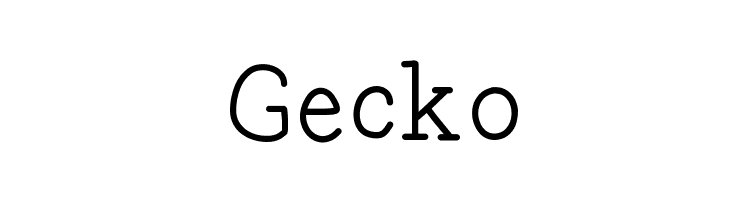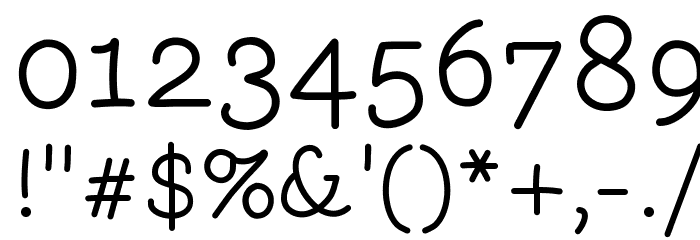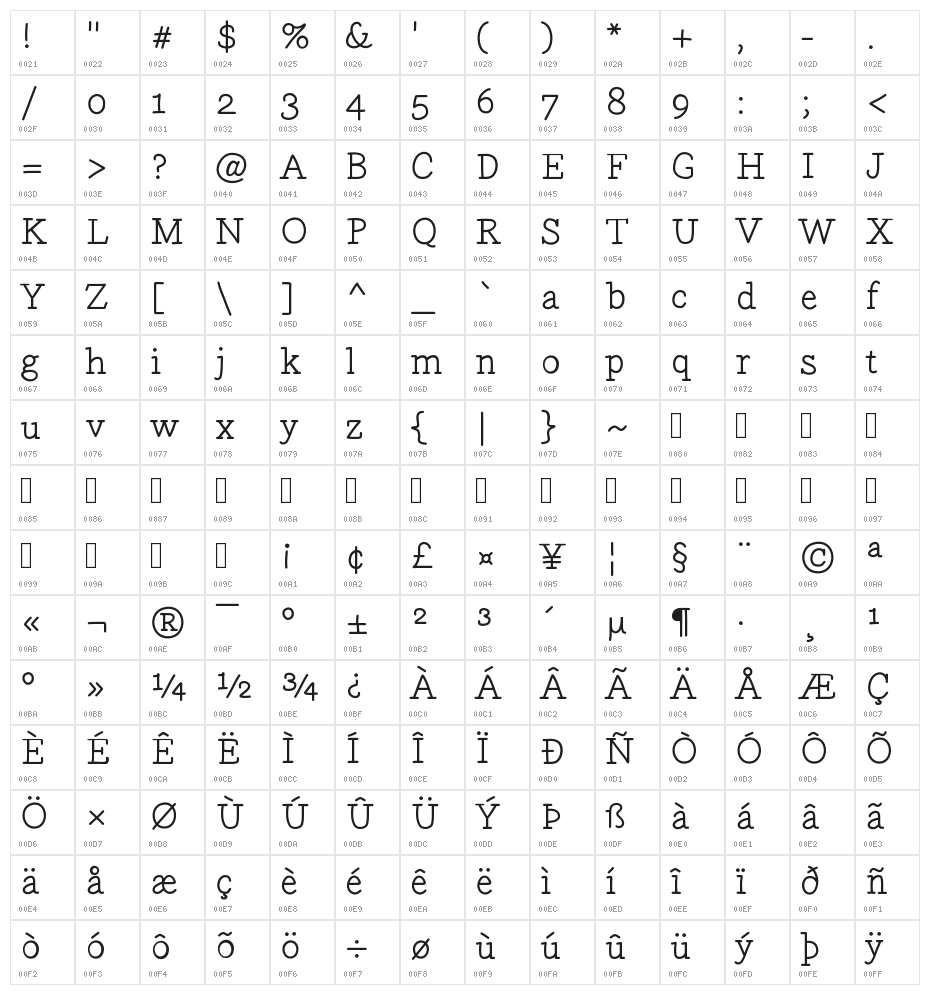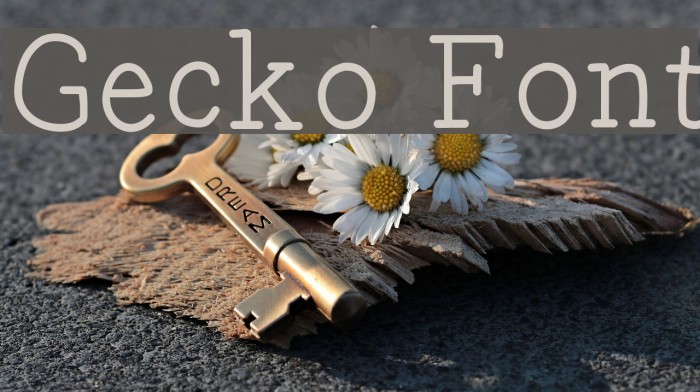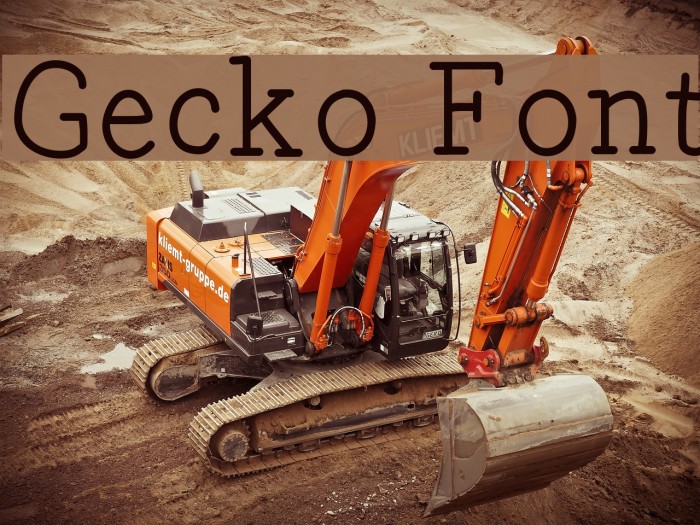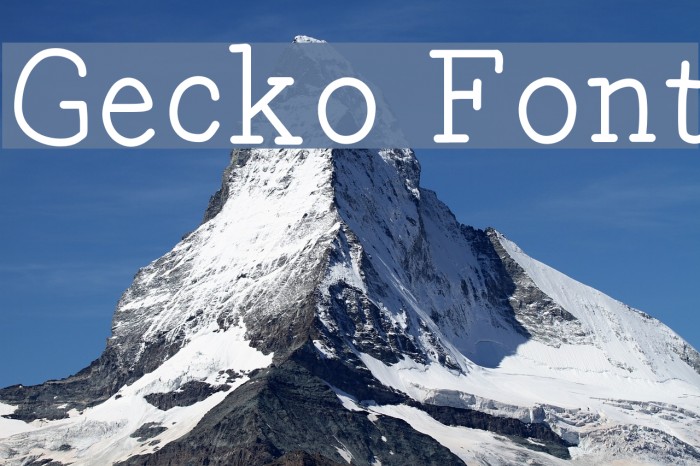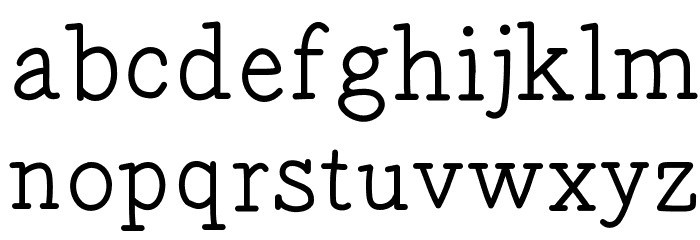
Gecko Font
Gecko Description
This font features a classic serif style with a modern twist, characterized by its clean and crisp lines. The serifs are pronounced yet not overly decorative, providing a balance between elegance and readability. The uppercase letters are bold and commanding, while the lowercase letters maintain a consistent flow with slightly rounded edges. The numerals are clear and easily distinguishable, making them suitable for various applications. Special characters are well-defined, adding versatility to the font's usage. Overall, the font exudes a timeless appeal, making it suitable for both traditional and contemporary designs.
| Proposed Projects | Ideal for editorial design, book covers, branding, and formal invitations. |